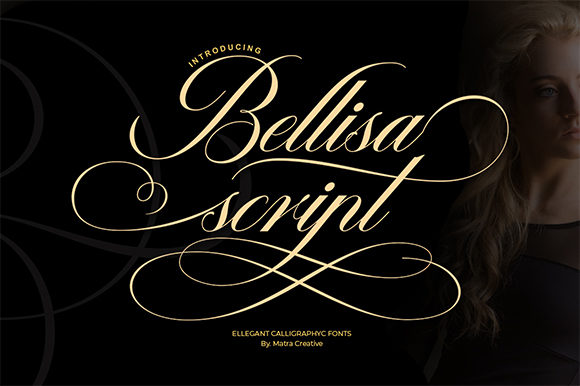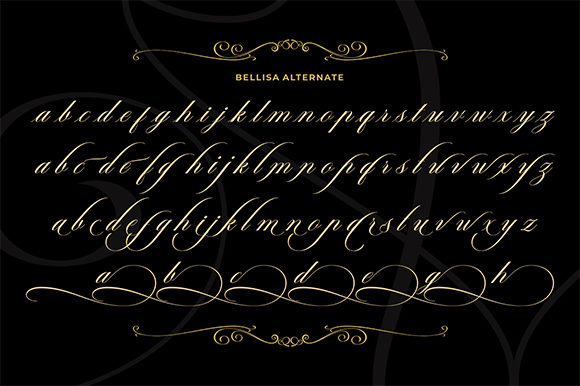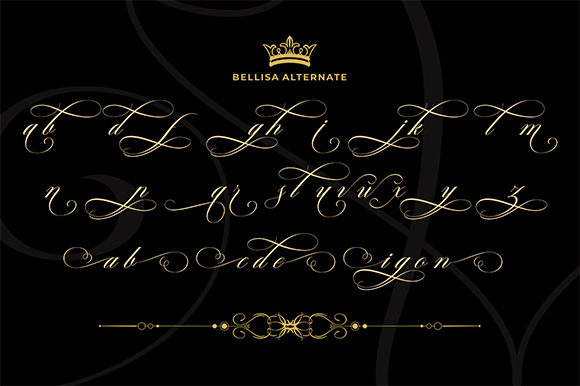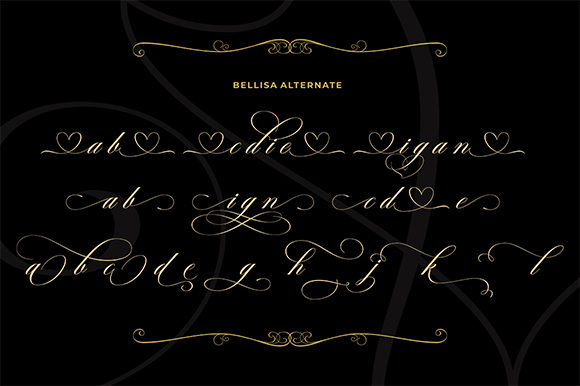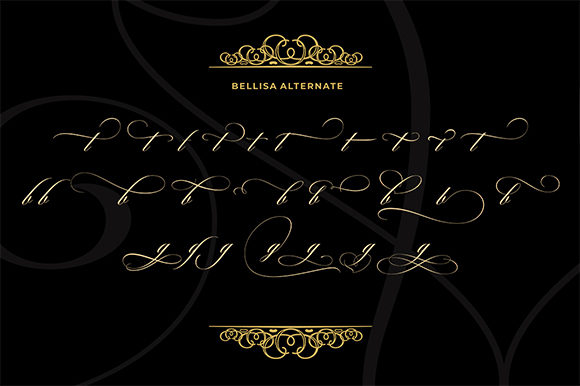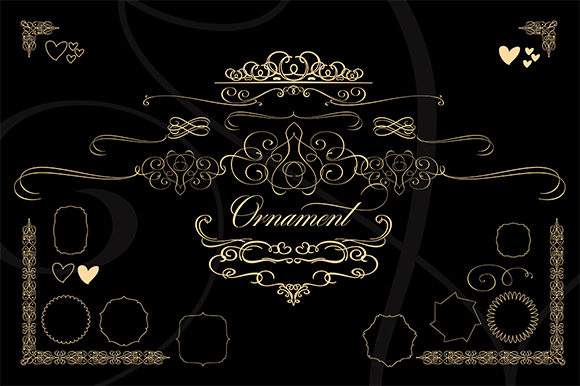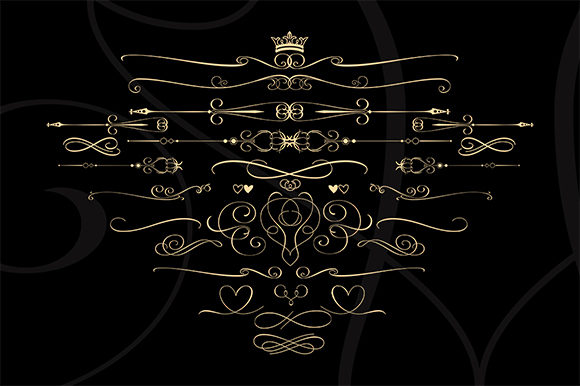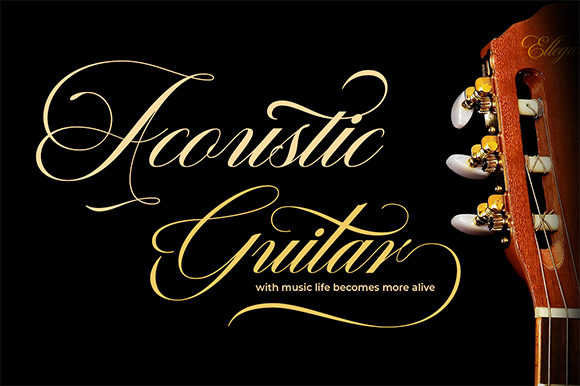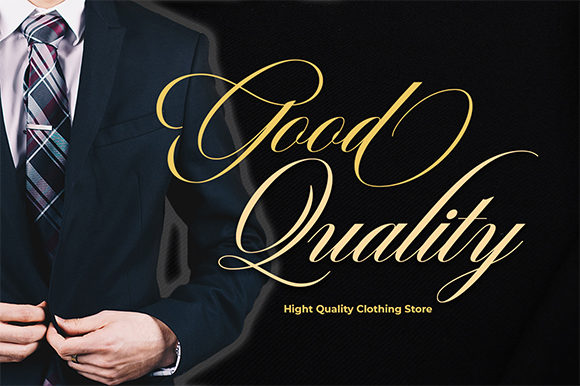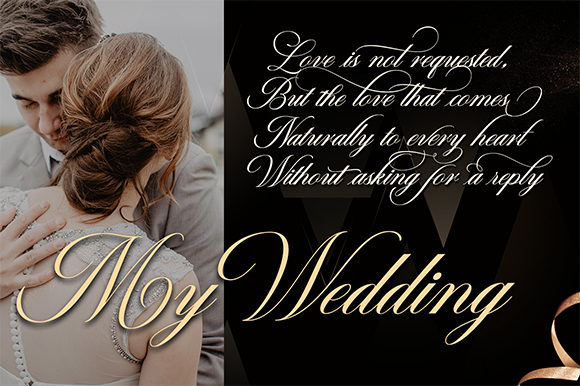
Bellisa Script Font
About Bellisa Script Font
Bellisa Sript is inspired by classic typography and brings its own unique style to every design project. This fantastic script font is best suited for headers of all sizes, and for blocks of text that have maximum and minimum variations. Be it for the web, printing, moving images or whatever – Bellisa Sript will look spectacular.This font is PUA encoded which means you can access all the funny glyphs and swash easily! It also has many special features including alternative glyphs and ornaments.